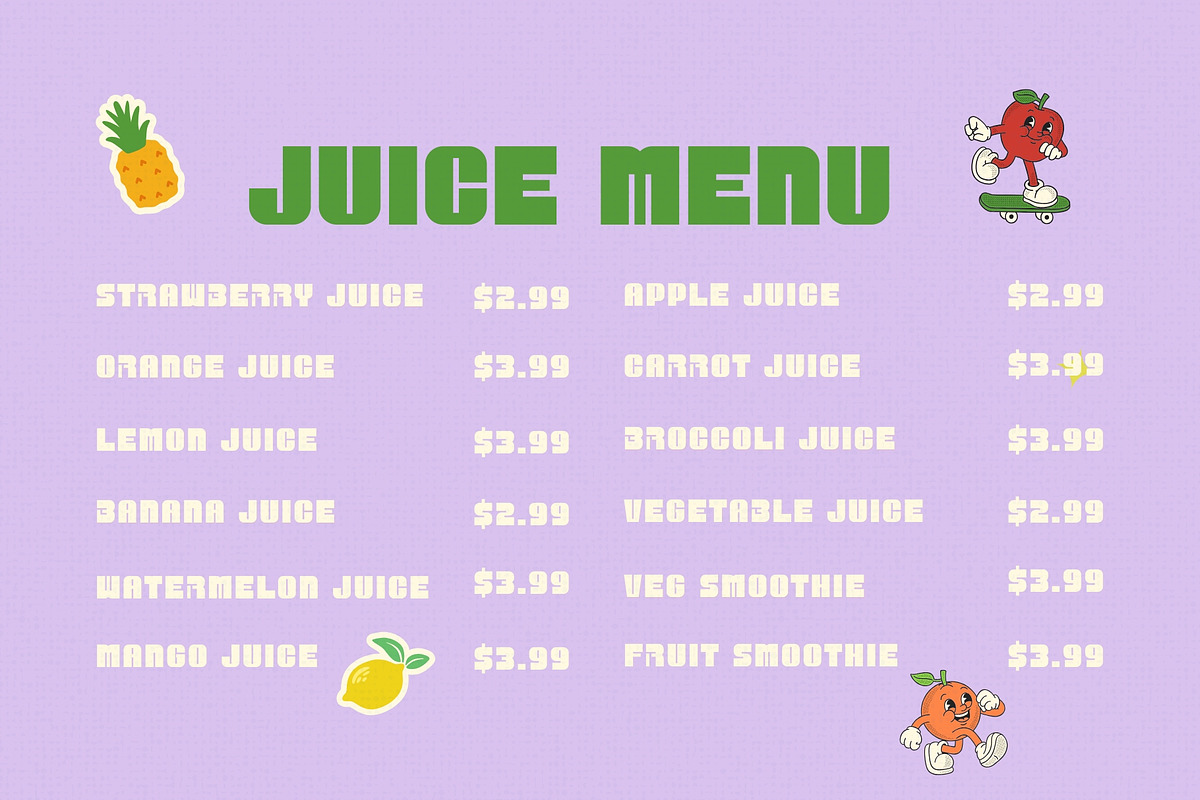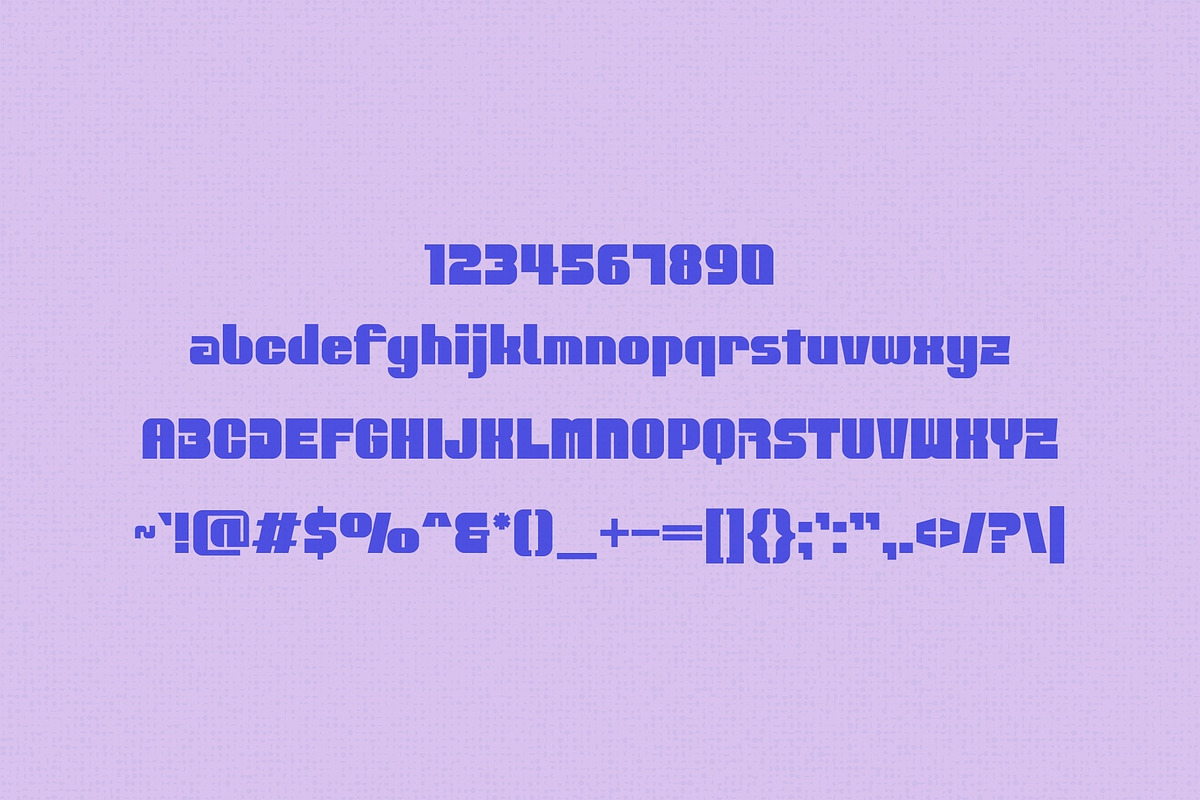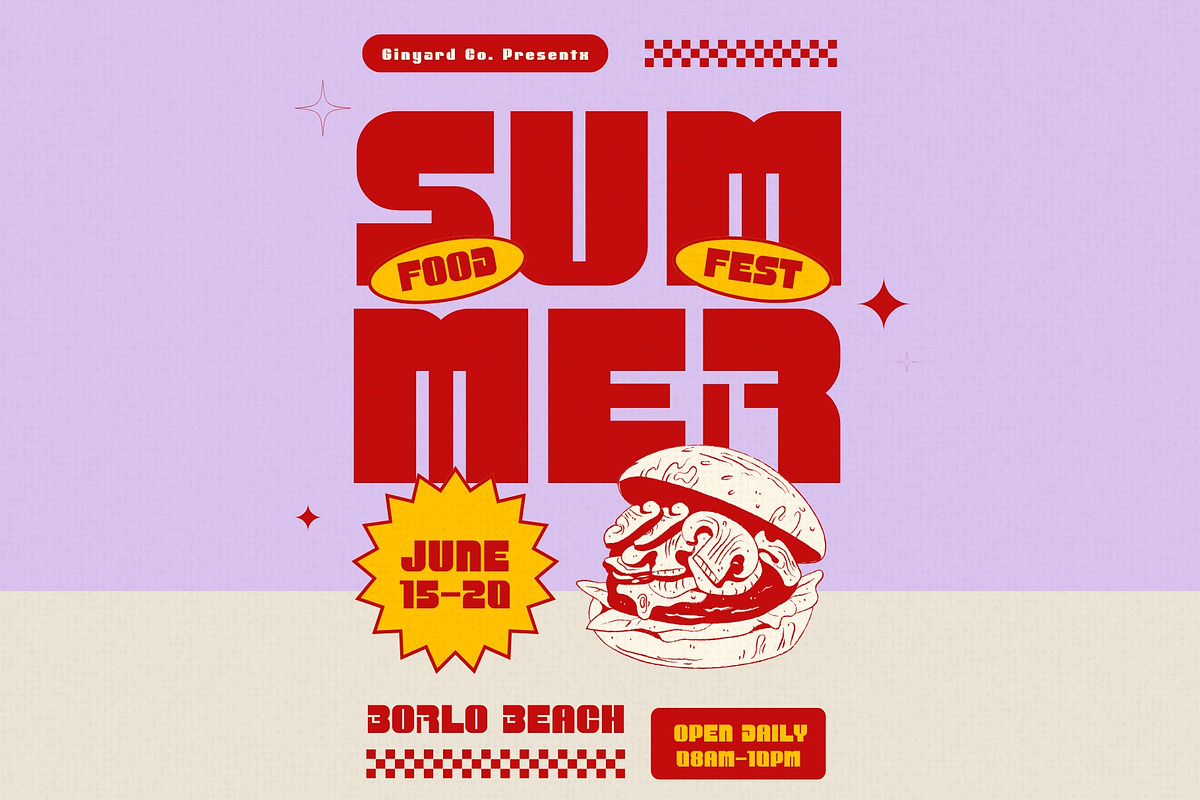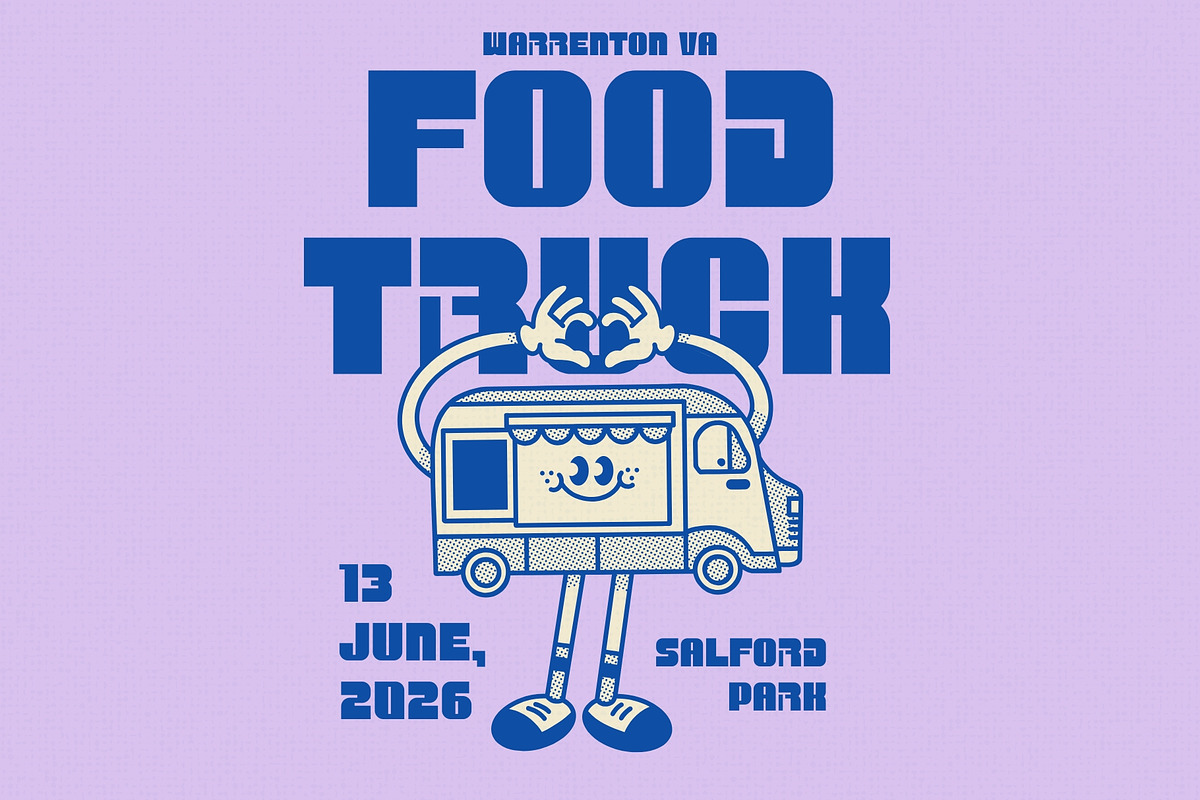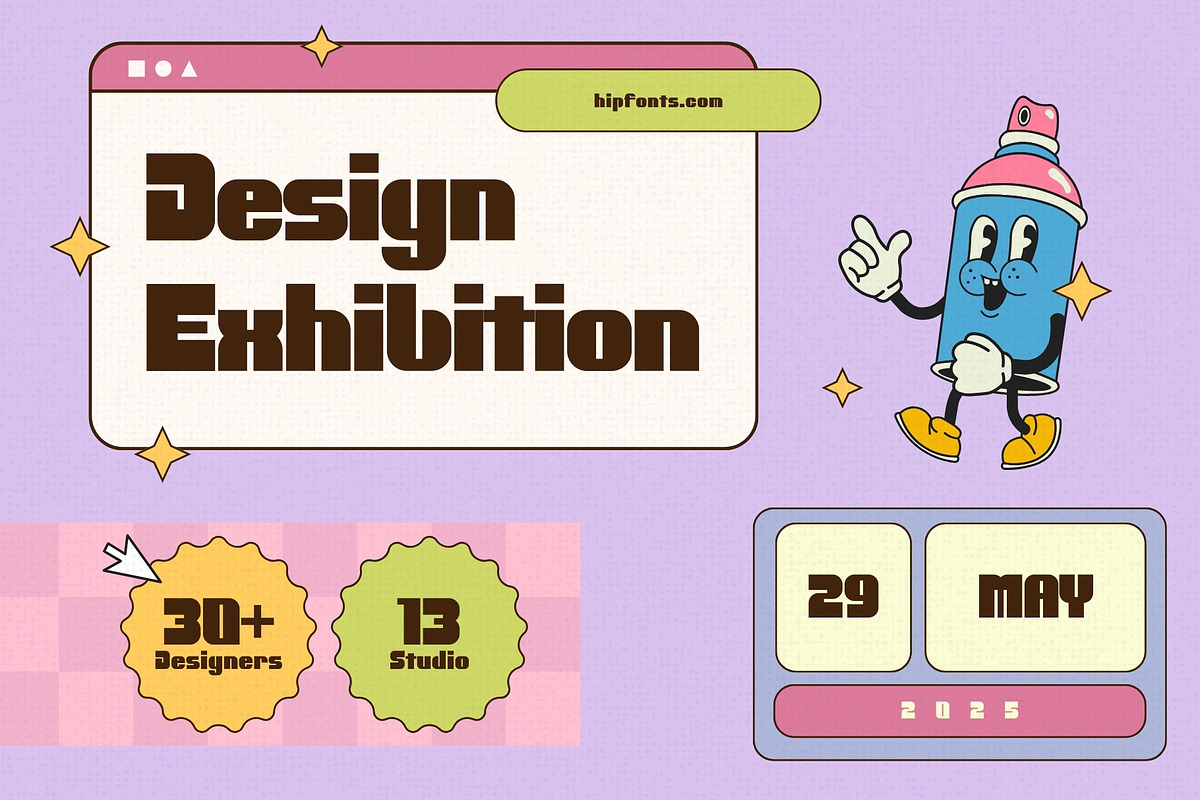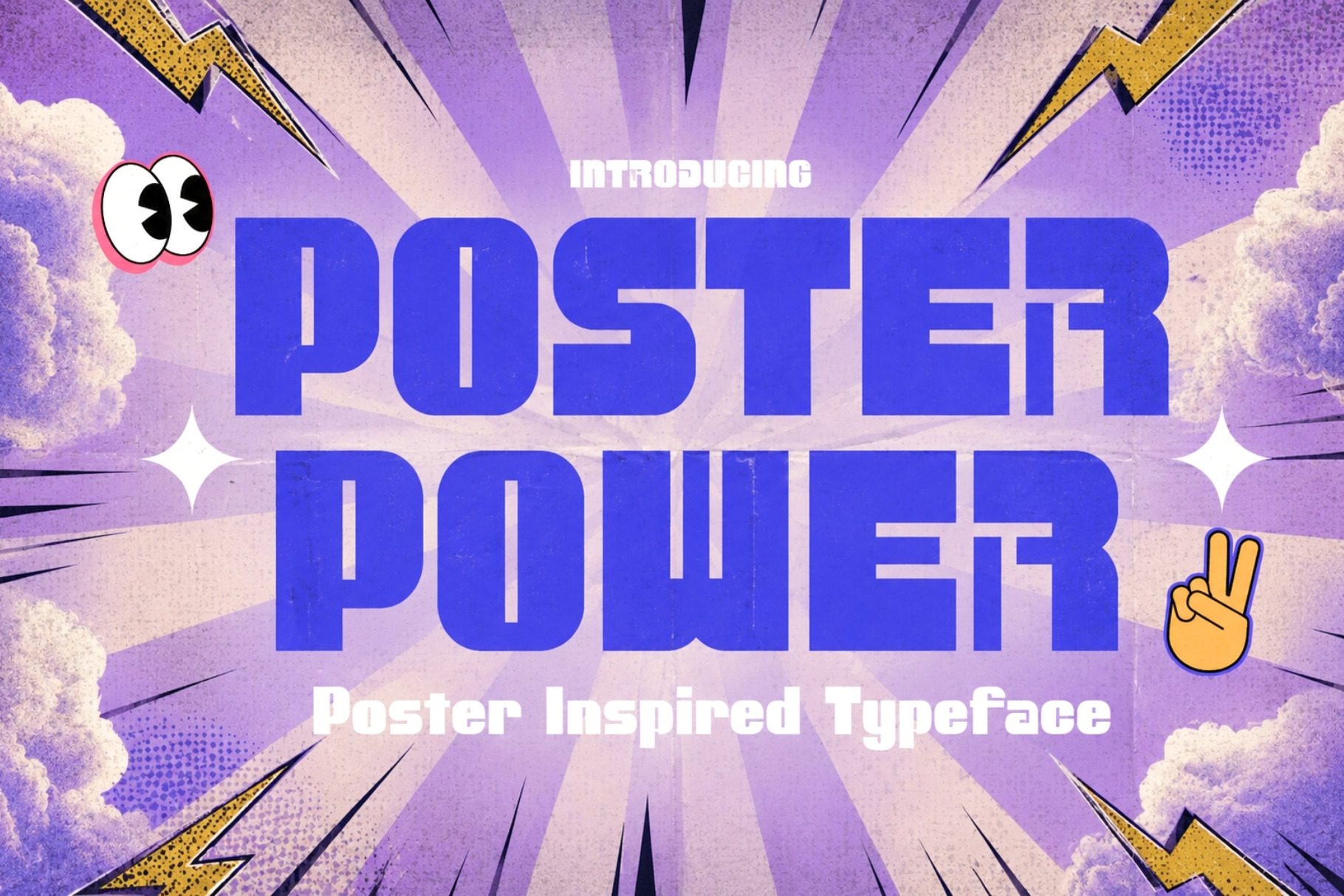
Poster Power - Event Poster Font
Introducing Poster Power, a striking sans-serif typeface designed to command attention and make a statement. Inspired by the bold aesthetics of vintage event posters, this font is perfect for headlines, eye-catching advertisements, and high-impact designs. With its strong presence and retro flair, Poster Power brings energy and style to any project.
Whether you're designing concert posters, festival banners, or promotional materials, this typeface ensures your message is seen loud and clear. Its clean yet charismatic letterforms create a dynamic look that’s both modern and timeless. If you need a font that’s bold, beautiful, and built for attention, Poster Power is the perfect choice!